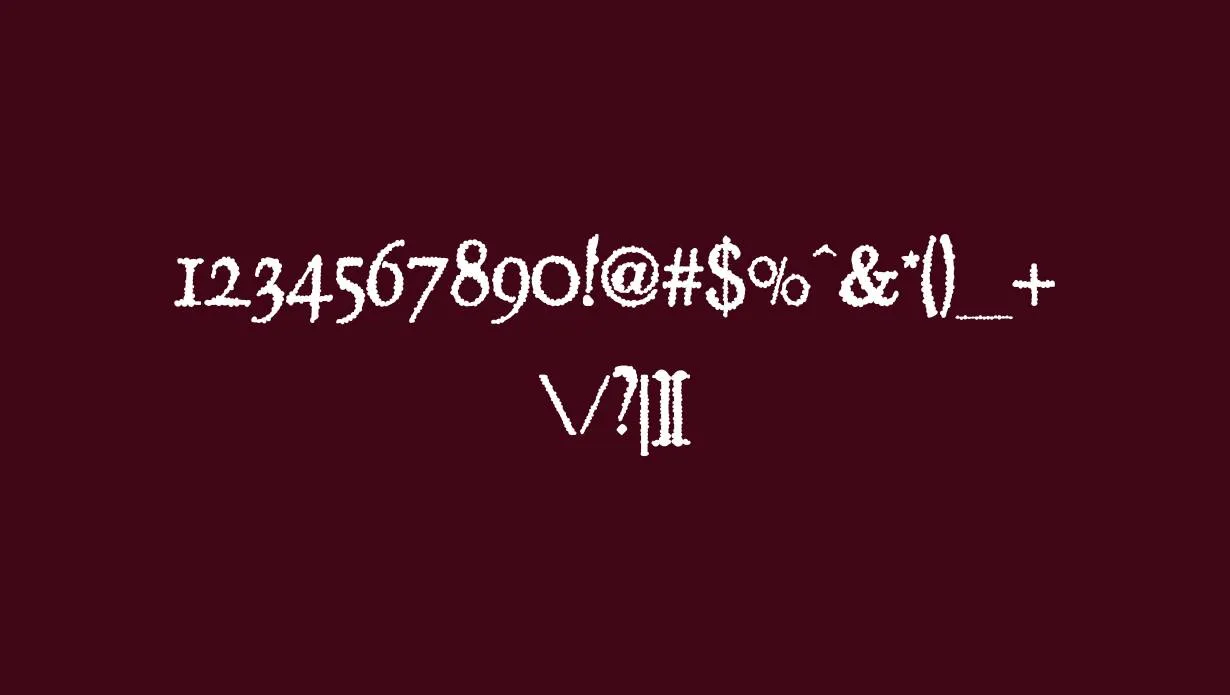
Skurri Font was designed by Northern James. The look of this font is horror and you can make attractive titles and logos for movies or video games by using it. It has only one regular style.
It contains 205 characters, 190 glyphs, and 1000 units per Em. The weight of this font is semi-light and its width is medium(normal). Unicode supported BMP only. It supports file formats TTF and can be downloaded on different devices for use. Languages supported Latin and Symbols.